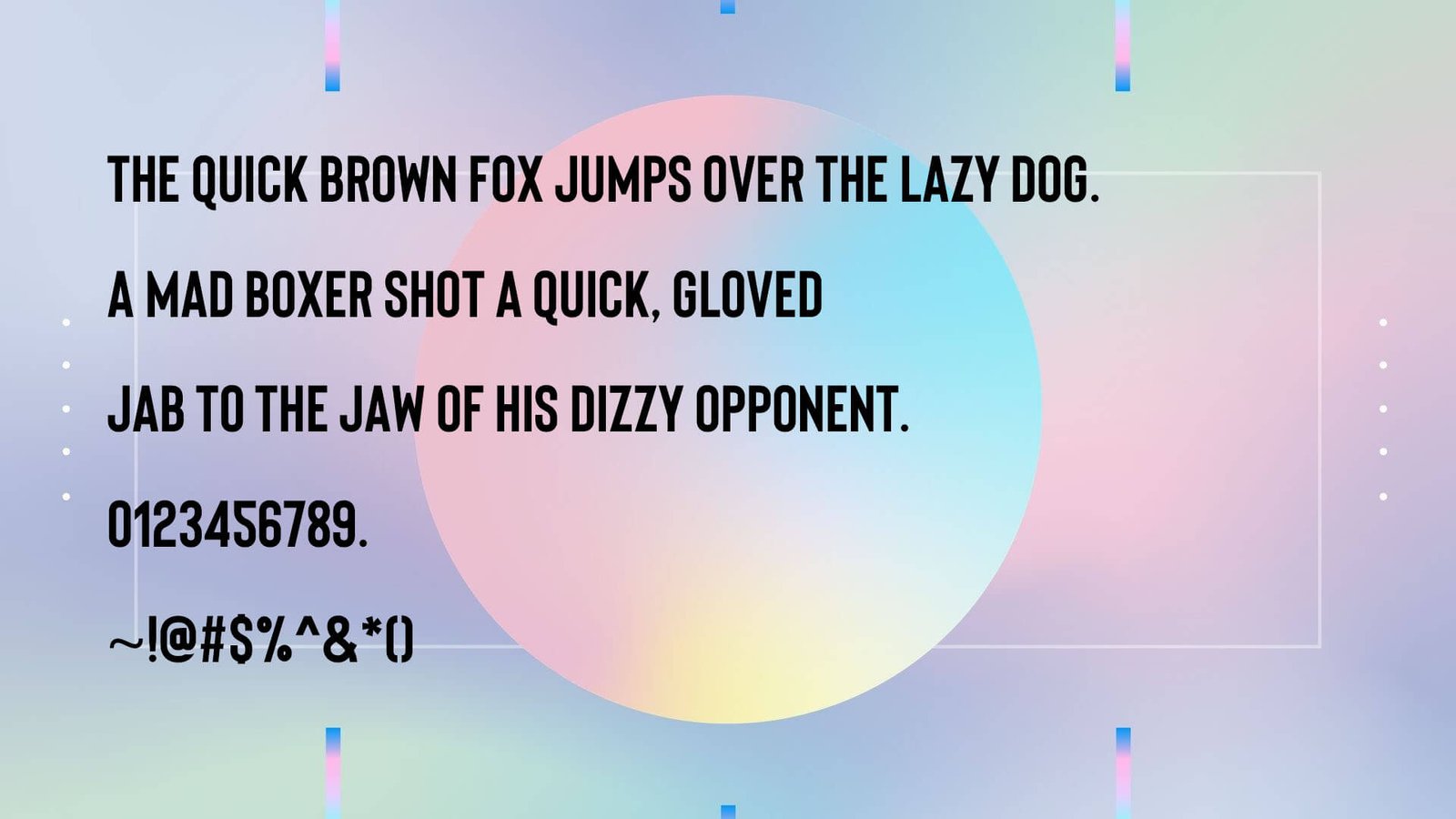
Introducing Bison Font, a robust typeface inspired by the “Animal Font” family. Created by Ellen Luff in March 2018, this font belongs to the Sans-Serif family, offering a strong and bold appearance.
The whole font texture set includes four weights, twelve styles, six italics, two outlines, narrow outline, Italic, Light, Light Italic, Regular, Italic. All characters of this family-style can support all western languages and central languages as well.
| Name | Bison Font |
| Designer | Ellen Luff |
| Style | Sans-serif |
Bison Font Family